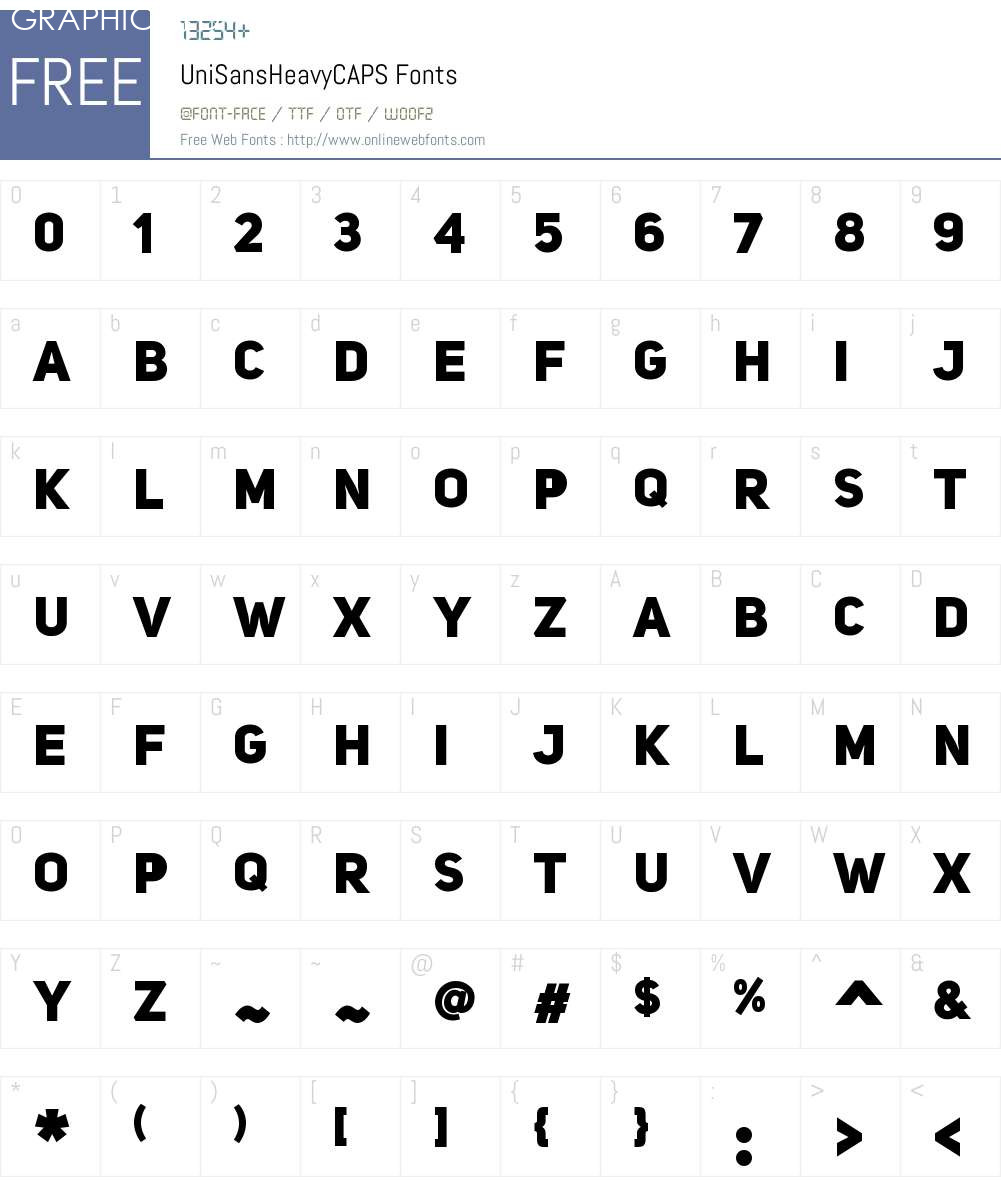
unisansheavycaps: A Unique and Versatile Font for Creative Projects
Fonts play a crucial role in design and communication, setting the tone and conveying messages in various visual mediums. One font that stands out from the rest is Unisansheavycaps. With its unique and versatile characteristics, this font has garnered attention from designers and creatives around the world.
Unisansheavycaps is a modern sans-serif font that combines simplicity with a touch of boldness. Its clean and geometric lines give it a sleek and contemporary look, making it suitable for a wide range of design projects. The font’s heavy caps add a sense of strength and impact to any text, making it perfect for headlines, titles, and branding materials.
One of the key features of Unisansheavycaps is its versatility. It can be used in both print and digital media, from posters and brochures to websites and social media graphics. The font’s clean and well-defined characters ensure readability, even at smaller sizes, making it suitable for body text as well.
With its modern and bold appearance, Unisansheavycaps is often associated with creative and artistic projects. It adds a contemporary and edgy touch to designs, making them stand out from the crowd. Whether used for a fashion magazine, a music album cover, or a trendy website, this font adds a unique flair to any creative endeavor.
The popularity of Unisansheavycaps can also be attributed to its ability to evoke different moods and emotions. The font’s boldness and strength can convey a sense of power and authority, making it suitable for corporate branding and professional materials. On the other hand, its modern and edgy appearance can also create a sense of excitement and creativity, making it perfect for more artistic and experimental projects.
In conclusion, Unisansheavycaps is a unique and versatile font that adds a modern and bold touch to any design project. Its clean and geometric lines, combined with its heavy caps, make it suitable for various applications, from headlines to body text. Its compatibility with different design software and platforms ensures its usability across different mediums. If you’re looking to make a statement with your designs, Unisansheavycaps is definitely worth considering.